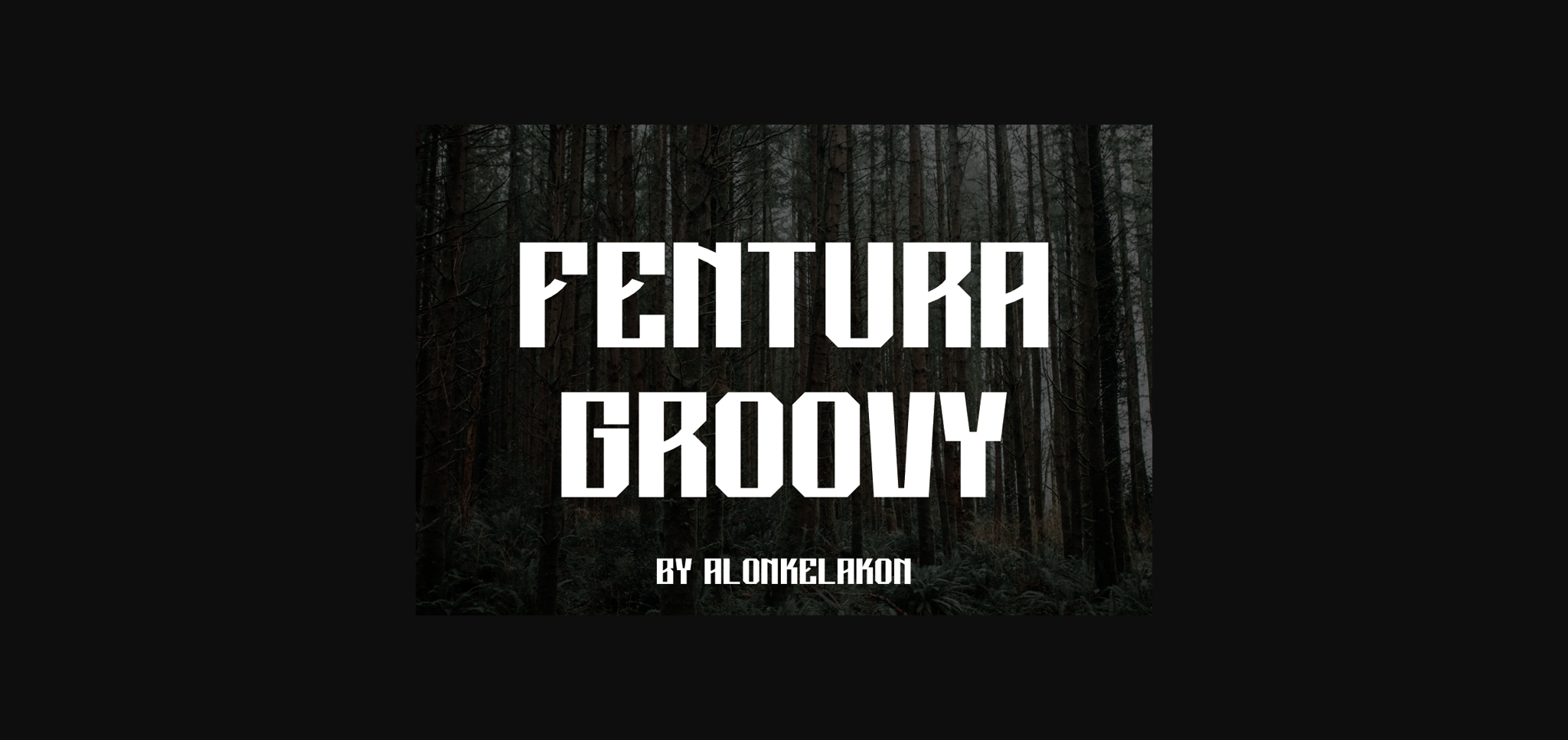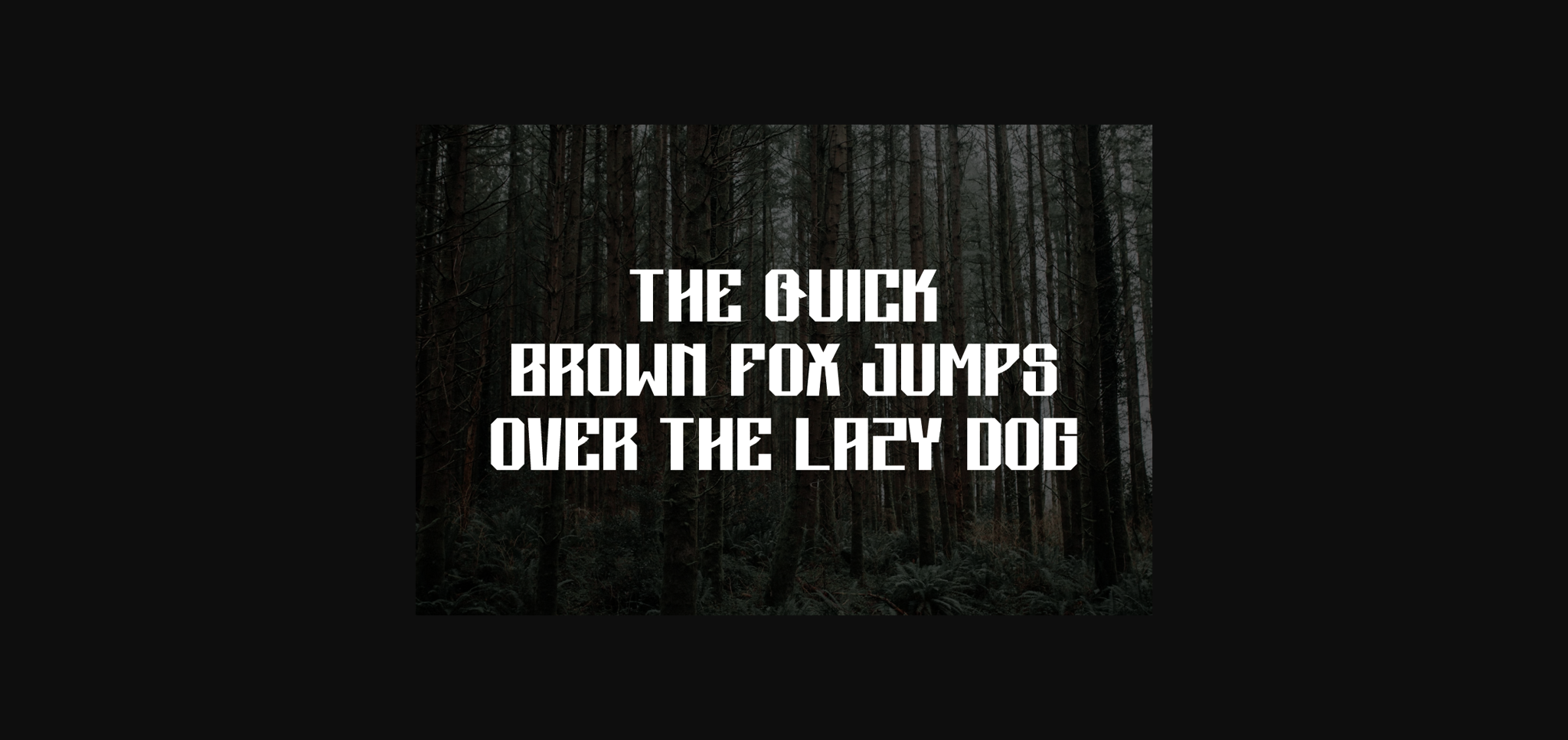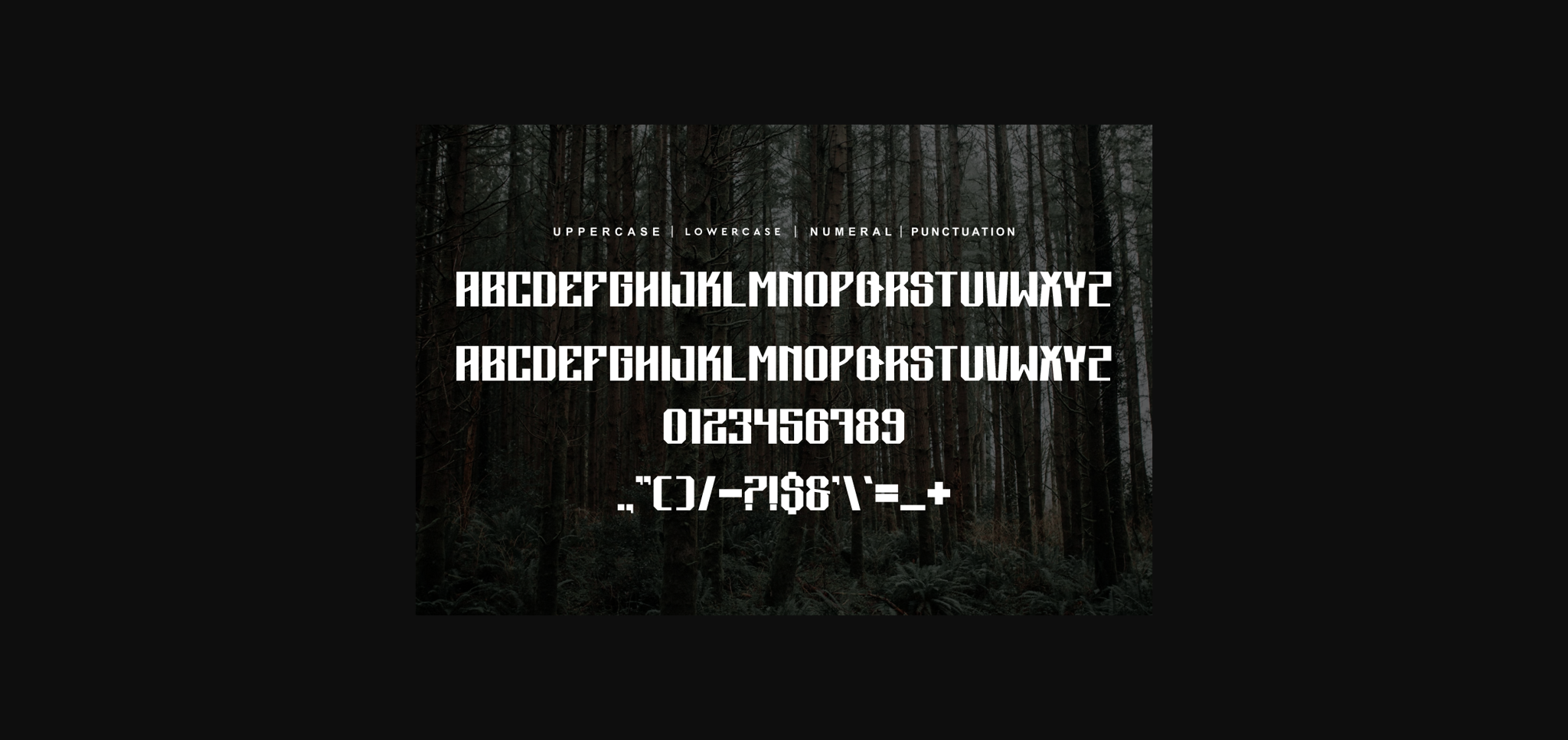
About Fentura Groovy Font
Immerse yourself in the captivating charisma of Fentura Groovy Font, truly a standout among equals. This distinctive typeface is prepped and primed to elevate your design, whether for distinctive labeling, riveting movie scenes or eye-catching posters. Perfect for crafting memorable movie titles, electrifying gig promotions, immersive album covers, and impactful logos. Fentura Groovy arrives in a versatile blend of OTF, TTF and WOFF to cater to every unique design need. Dive in and let the magic of Fentura Groovy Font transform your next design into a masterpiece.